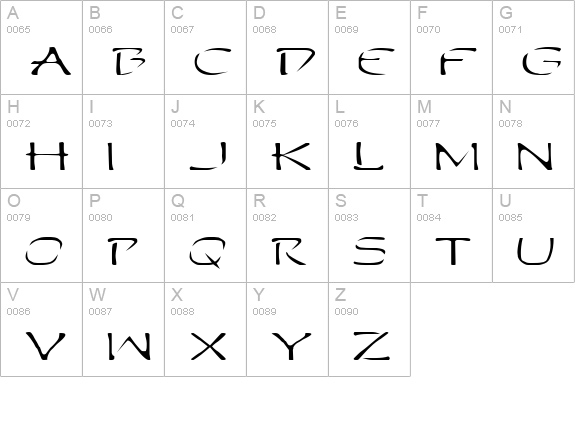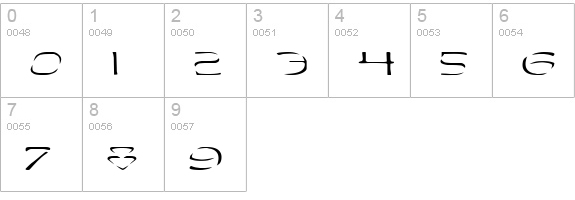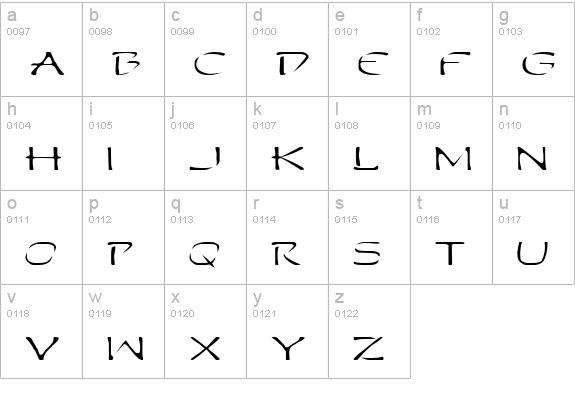
Perdition Extended is a distinctive, extended-width variant in the Perdition typeface family \xE2\x80\x94 well suited to design and typography projects.
Perdition Extended font is a visually striking typeface that commands attention with its bold and powerful presence. Perfect for headlines and titles, this font exudes a sense of strength and confidence that will make your designs stand out from the crowd. With its extended letterforms and sharp edges, Perdition Extended font adds a touch of modernity and sophistication to any project. Whether you're working on a logo, branding materials, or a poster, this font will inject a sense of drama and impact that leaves a lasting impression. What makes Perdition Extended font even more remarkable is that it is available for free. Yes, you read that right! This incredible font can be freely downloaded at FontsMarket.com, making it accessible to designers and creatives of all levels. By offering this font for free, the creators of Perdition Extended font have ensured that everyone can bring their design visions to life without any limitations. So whether you're a seasoned professional or just starting out, you can now access this exceptional font and elevate your designs to new heights. Don't miss out on the opportunity to enhance your projects with Perdition Extended font. Download it for free today at FontsMarket.com and unlock the potential of your creativity.